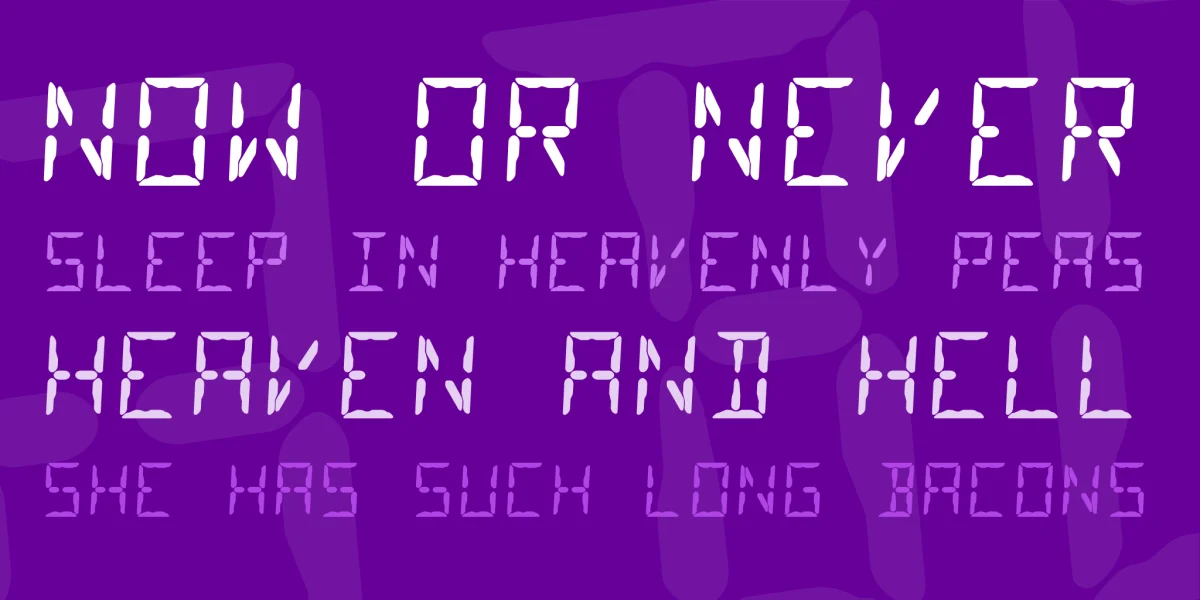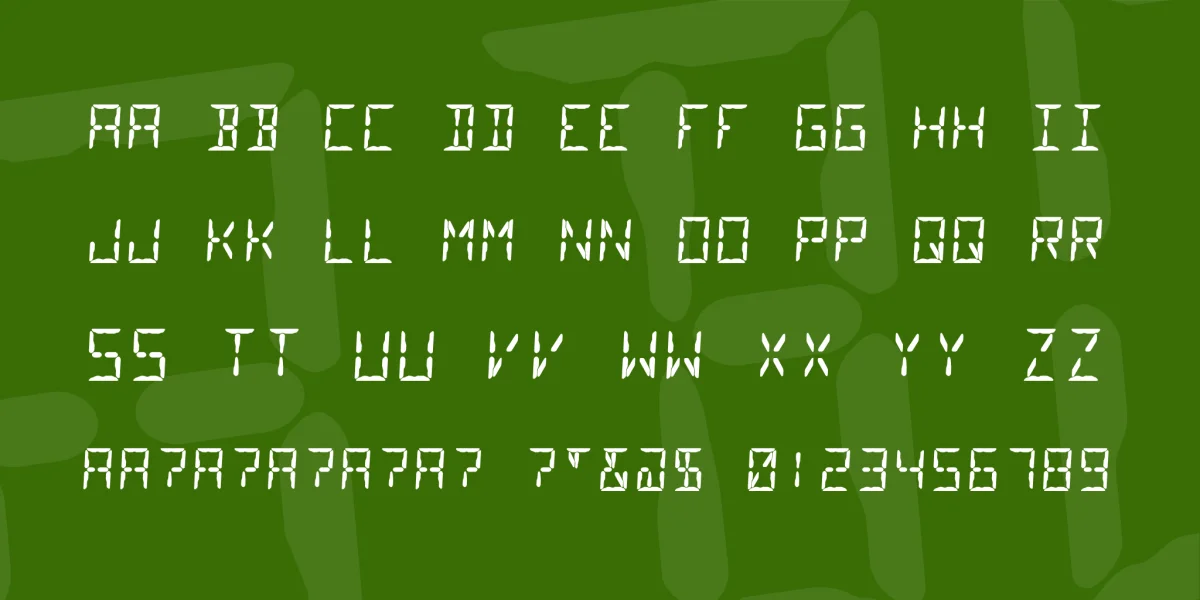
Designed to match the 14-segment LED display of my Stag PROM Programmer. The glyphs aren't as clean and straight-lined as the representations you'll see elsewhere, because they don't appear that way when you look at the display. Over the top of the LEDs themselves, there appears to be a fine hexagonal mesh, and that changes the apparent shape of the characters. The strokes are all roughly the same width, but they have sections cut out so they fit together neatly.